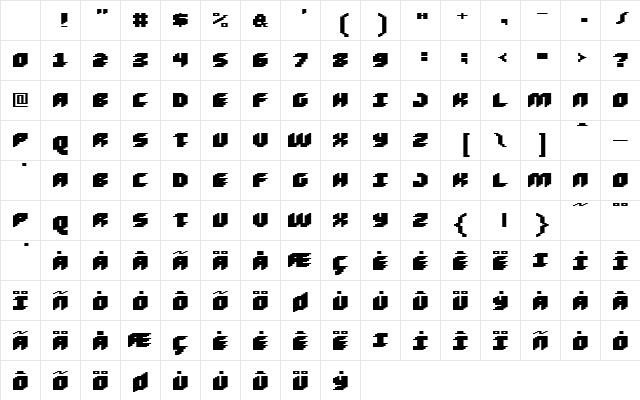
Complete Loud noise Black Regular glyph index. Displaying only characters natively supported by Loud noise Black Regular font.
Loud noise Black is a composed and adaptable typeface that performs quietly and consistently across a wide range of design contexts.